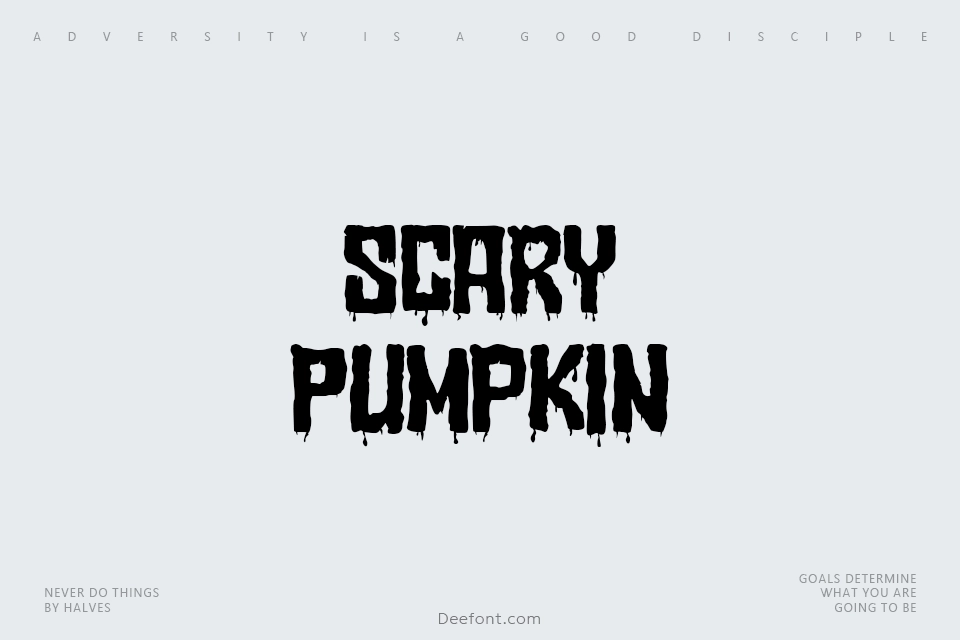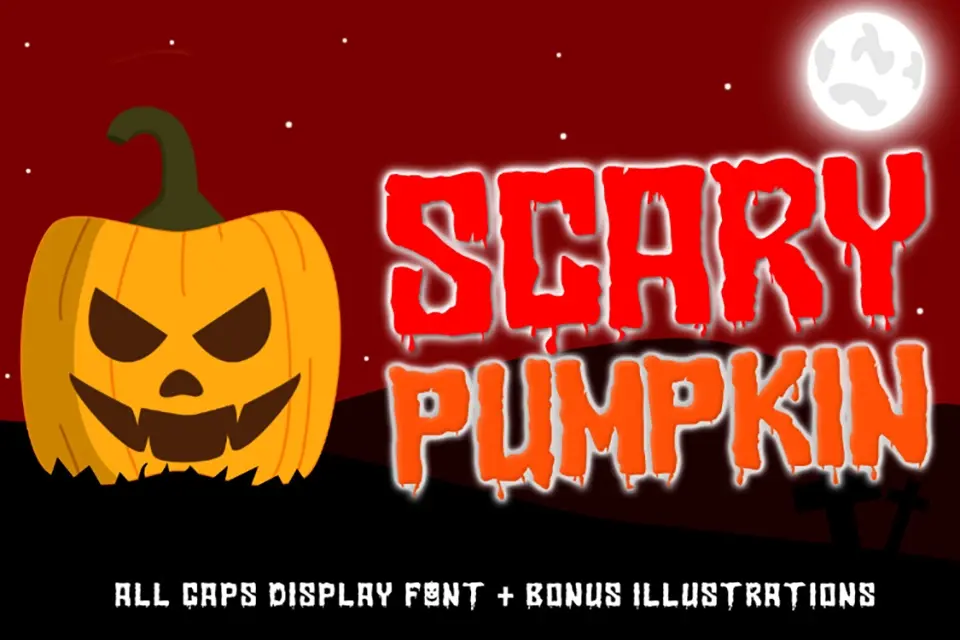
Scary Pumpkin Font
Scary Pumpkin is a spooky Halloween-themed display font featuring a creepy, bold design perfect for seasonal projects and festive typography. Designed with playful eeriness, this typeface is ideal for Halloween decorations, posters, and thematic graphics. The font showcases distinctive letterforms with a fun, haunted aesthetic that brings personality and character to any design project requiring a Halloween atmosphere or festive seasonal appeal.